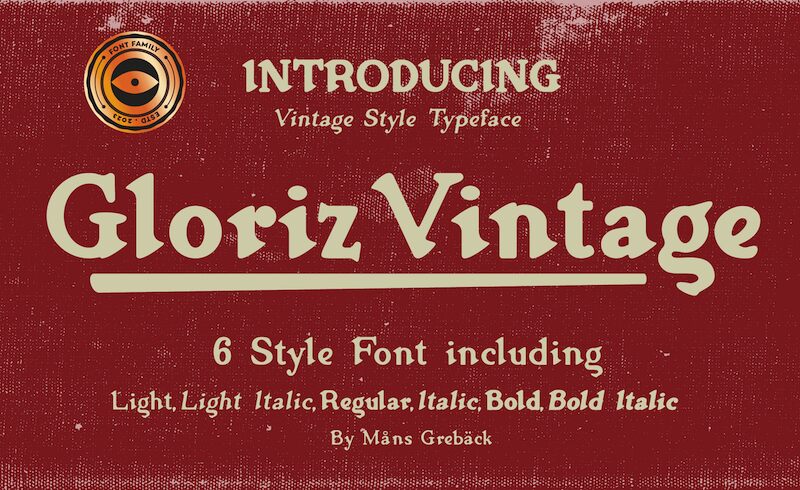
Gloriz Vintage, designed by Mans Greback, is a stunning display font that exudes a vintage charm. With its semi-bold weight and intricate details, this typeface is perfect for branding projects, signage designs, and packaging. Its timeless aesthetic adds character to any project that requires a touch of nostalgia or an old-school vibe. Whether you're designing for a retro-inspired cafe or creating promotional materials for a classic car show, Gloriz Vintage will elevate your work with its unique style. Make your design stand out with this beautiful vintage font and watch it become the talk of the town.